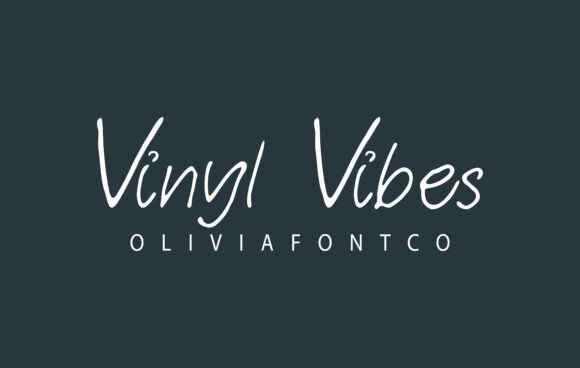
Vinyl Vibes Font: The Ultimate Guide to This Authentic Handwritten Font
Are you looking for a font that can add a touch of romance and elegance to your creative projects? Look no further than Vinyl Vibes Font. This authentic handwritten font has been expertly designed to capture the hearts of designers and crafty enthusiasts alike. With its unique blend of classic charm and modern flair, Vinyl Vibes Font is the perfect choice for anyone looking to elevate their designs to the next level.
What is Vinyl Vibes Font?
Vinyl Vibes Font is a carefully crafted handwritten font that exudes a sense of romance and sophistication. Its authentic feel makes it perfect for a wide range of design applications, from magazine headlines and social media graphics to branding, wedding invitations, and greeting cards. This font has been designed to be highly legible, making it suitable for use as both title and body text.
Key Features of Vinyl Vibes Font
- Authentic Handwritten Style: Vinyl Vibes Font boasts an authentic handwritten style that adds a personal touch to any design.
- Romantic Touch: The font’s elegant and refined aesthetic makes it perfect for designs that require a romantic or sophisticated feel.
- High Legibility: Vinyl Vibes Font is designed to be highly legible, making it suitable for use in a variety of contexts, from titles and headings to body text.
- Versatile: This font can be used for a wide range of design applications, including magazine headlines, social media graphics, branding, wedding invitations, and more.
Uses of Vinyl Vibes Font
Vinyl Vibes Font is an incredibly versatile font that can be used in a multitude of design contexts. Here are some of the ways you can use this beautiful font:
Design Applications
- Magazine Headlines: Add a touch of elegance and sophistication to your magazine headlines with Vinyl Vibes Font.
- Social Media Graphics: Create eye-catching social media graphics that stand out from the crowd with this unique font.
- Branding: Use Vinyl Vibes Font to create a cohesive brand identity that exudes romance and sophistication.
- Wedding Invitations: Add a touch of romance and whimsy to your wedding invitations with this beautiful font.
- Greeting Cards: Create beautiful and heartfelt greeting cards that will make your loved ones feel special.
Why Choose Vinyl Vibes Font?
With so many fonts available, why should you choose Vinyl Vibes Font for your design projects? Here are some compelling reasons to consider:
Why Vinyl Vibes Font Stands Out
- Unique Style: Vinyl Vibes Font boasts a unique and authentic handwritten style that sets it apart from other fonts.
- Elegant Aesthetic: The font’s elegant and refined aesthetic makes it perfect for designs that require a touch of sophistication.
- Highly Legible: Vinyl Vibes Font is designed to be highly legible, making it suitable for use in a variety of contexts.
- Versatile: This font can be used for a wide range of design applications, making it a valuable addition to any designer’s toolkit.
Tips for Using Vinyl Vibes Font
To get the most out of Vinyl Vibes Font, here are some tips to keep in mind:
Getting the Most Out of Vinyl Vibes Font
- Use it Sparingly: Vinyl Vibes Font is a statement font, so use it sparingly to make a maximum impact.
- Pair it with Other Fonts: Experiment with pairing Vinyl Vibes Font with other fonts to create a unique and visually appealing design.
- Adjust the Size and Color: Adjust the size and color of Vinyl Vibes Font to suit your design needs.
- Experiment with Different Effects: Experiment with different effects, such as bolding or italicizing, to add emphasis and create visual interest.
Vinyl Vibes Font is an authentic handwritten font with a romantic touch that is sure to elevate your design projects to the next level. With its unique blend of classic charm and modern flair, this font is perfect for a wide range of design applications. Whether you’re a designer, crafty enthusiast, or simply someone looking for a beautiful font to add to your toolkit, Vinyl Vibes Font is an excellent choice.
Final Thoughts
Vinyl Vibes Font is a beautiful and versatile font that is sure to become a favorite among designers and crafty enthusiasts alike. Its unique style, elegant aesthetic, and high legibility make it perfect for a wide range of design applications. So why wait? Download Vinyl Vibes Font today and start creating stunning designs that will leave a lasting impression!